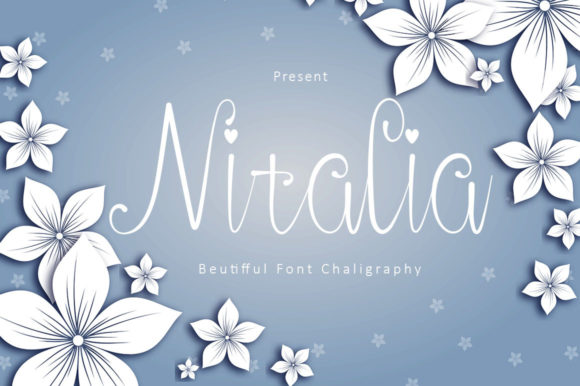
Indulge in the captivating world of Nitalia Font, a script typeface that evokes timeless elegance and modern sophistication. Crafted with meticulous care by Almahyra Studio, Nitalia empowers you to make a bold statement with every stroke.
Step into a realm of creative possibilities with Nitalia, a font designed to elevate your designs to new heights. Whether you're crafting an unforgettable logo, shaping a captivating brand identity, or composing heartwarming invitations, Nitalia's graceful curves and sweeping lines will add a touch of magic to your creations.
Unleash your imagination and explore the endless possibilities that await you with Nitalia. Its versatility knows no bounds, effortlessly adapting to a symphony of design styles. From ethereal social media posts to timeless wedding invitations, Nitalia transforms ordinary words into mesmerizing works of art.
With Nitalia at your disposal, you'll discover a font that's not just a digital typeface, but a true extension of your creative spirit. Its ability to evoke emotions and capture attention will leave an unforgettable mark on your audience, ensuring that your designs stand out from the crowd.
Embrace the allure of Nitalia Font today and embark on a journey of captivating creativity. Let its elegant strokes inspire your imagination and elevate your designs to new heights.